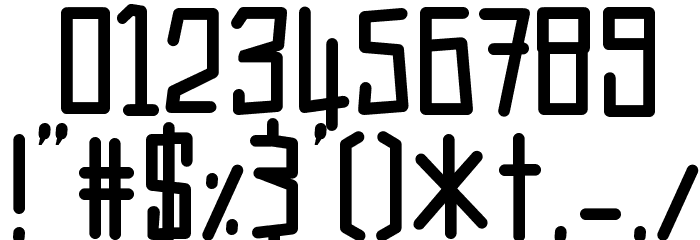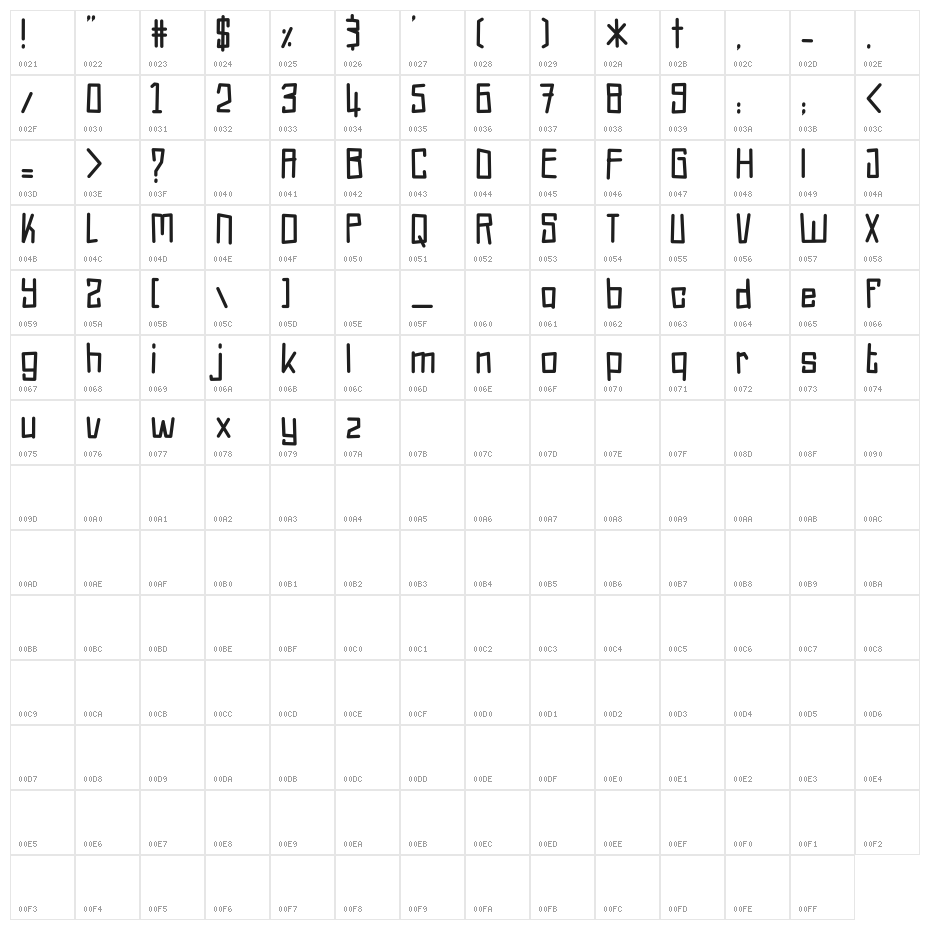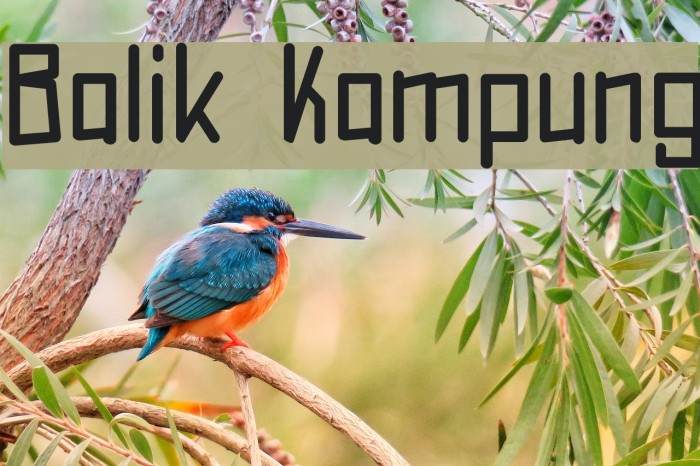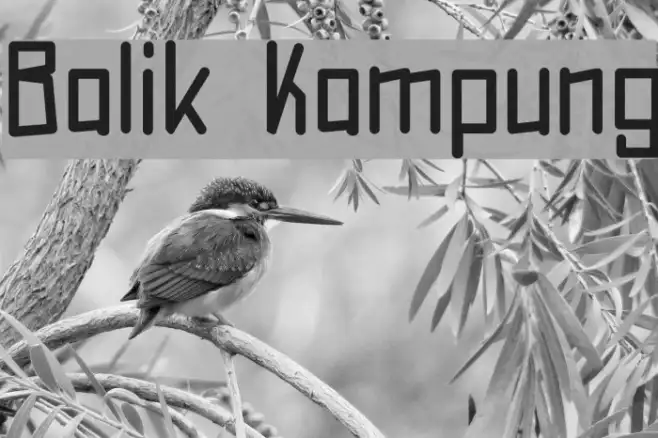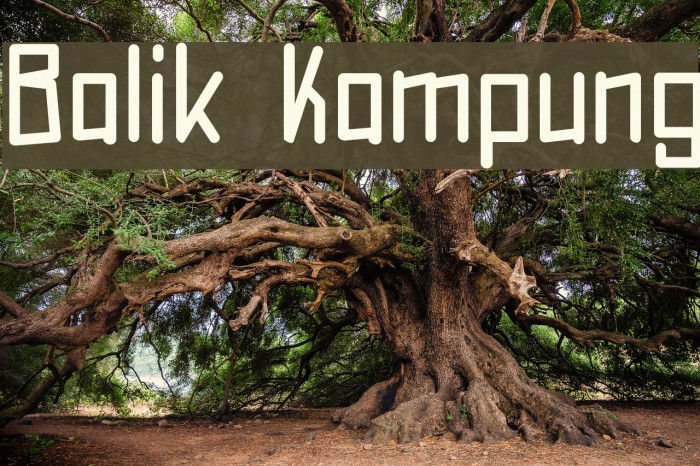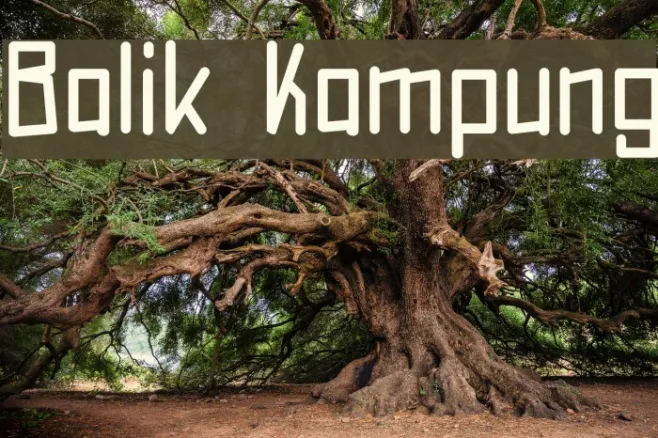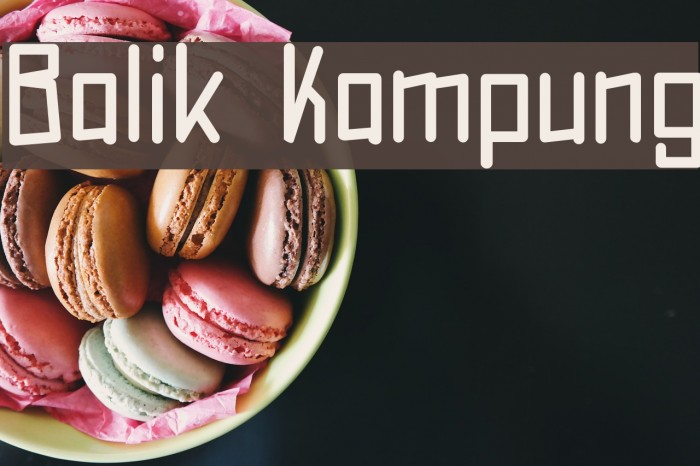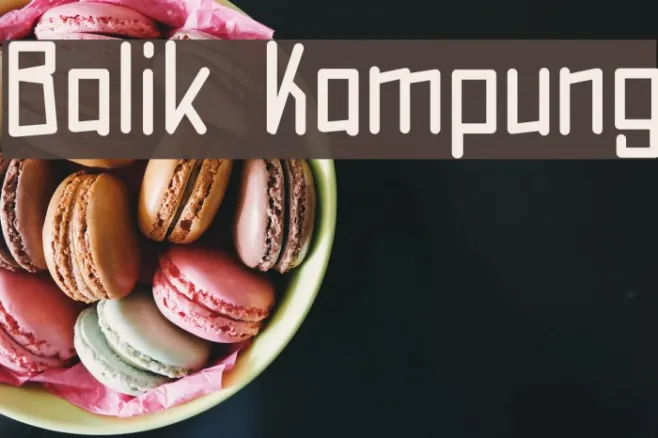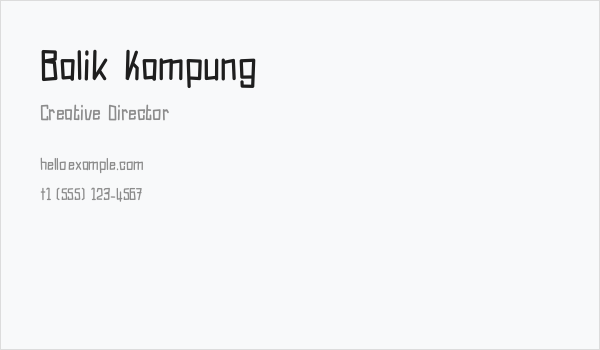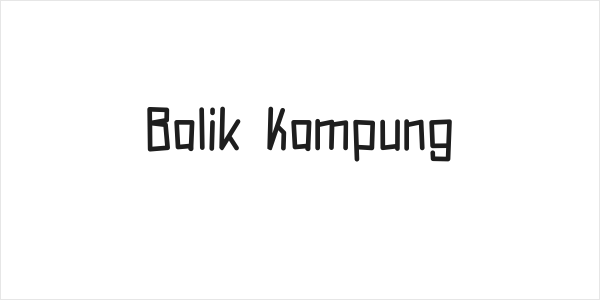
Balik Kampung Font
This font features a unique, geometric design with a modern and playful aesthetic. The characters are constructed with consistent line thickness, giving it a monospaced appearance. The uppercase and lowercase letters maintain a uniform height, creating a cohesive look. The numerals and special characters are designed to match the overall style, with a focus on simplicity and readability. The font's distinct style makes it suitable for creative projects that require a contemporary and informal touch.
| Proposed Projects | Ideal for branding, posters, digital art, and any project that requires a modern and informal style. |